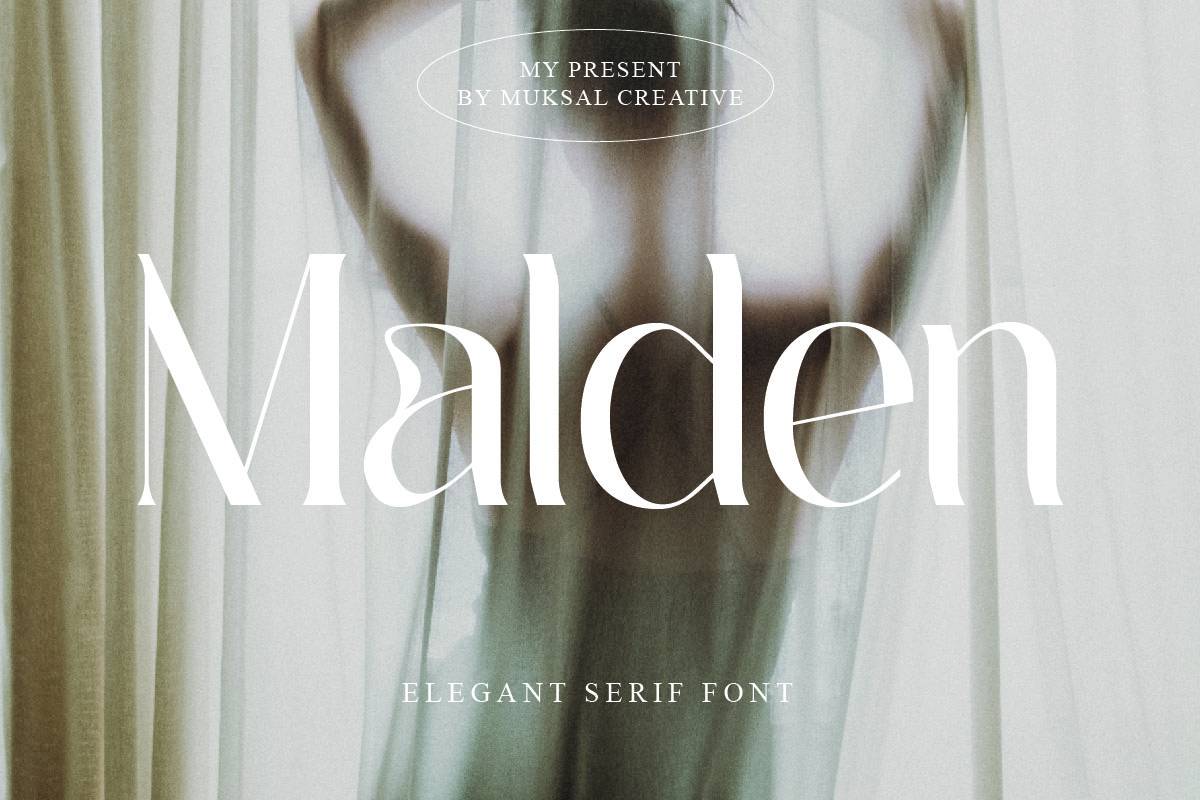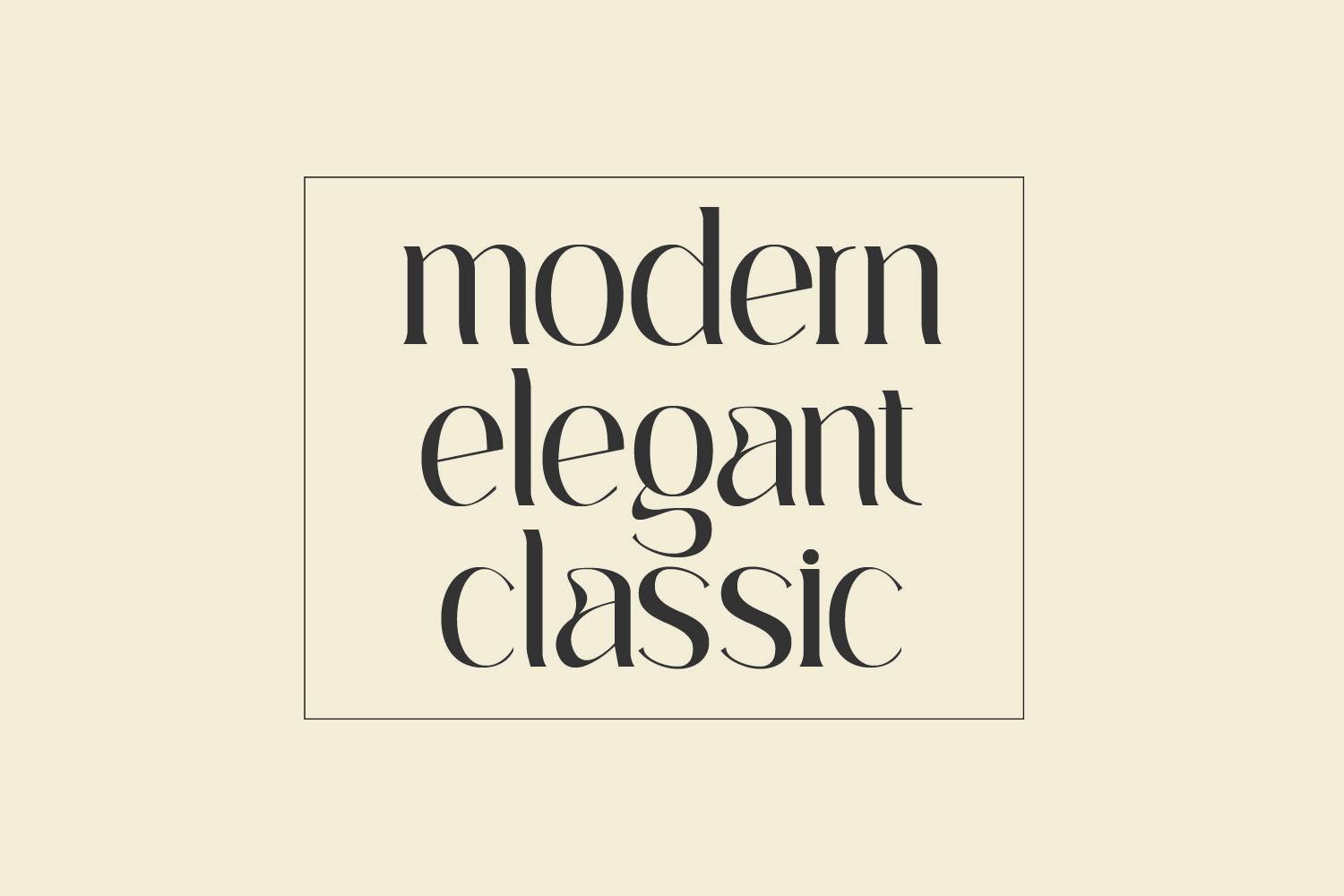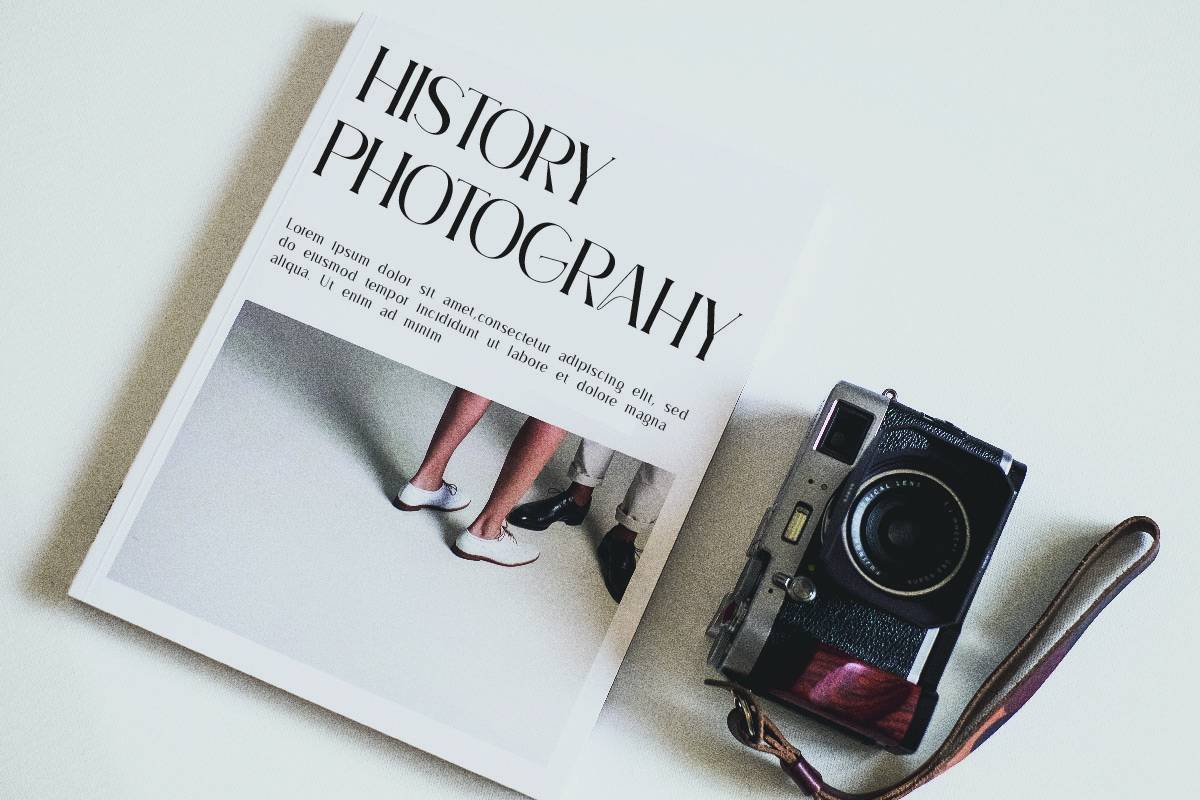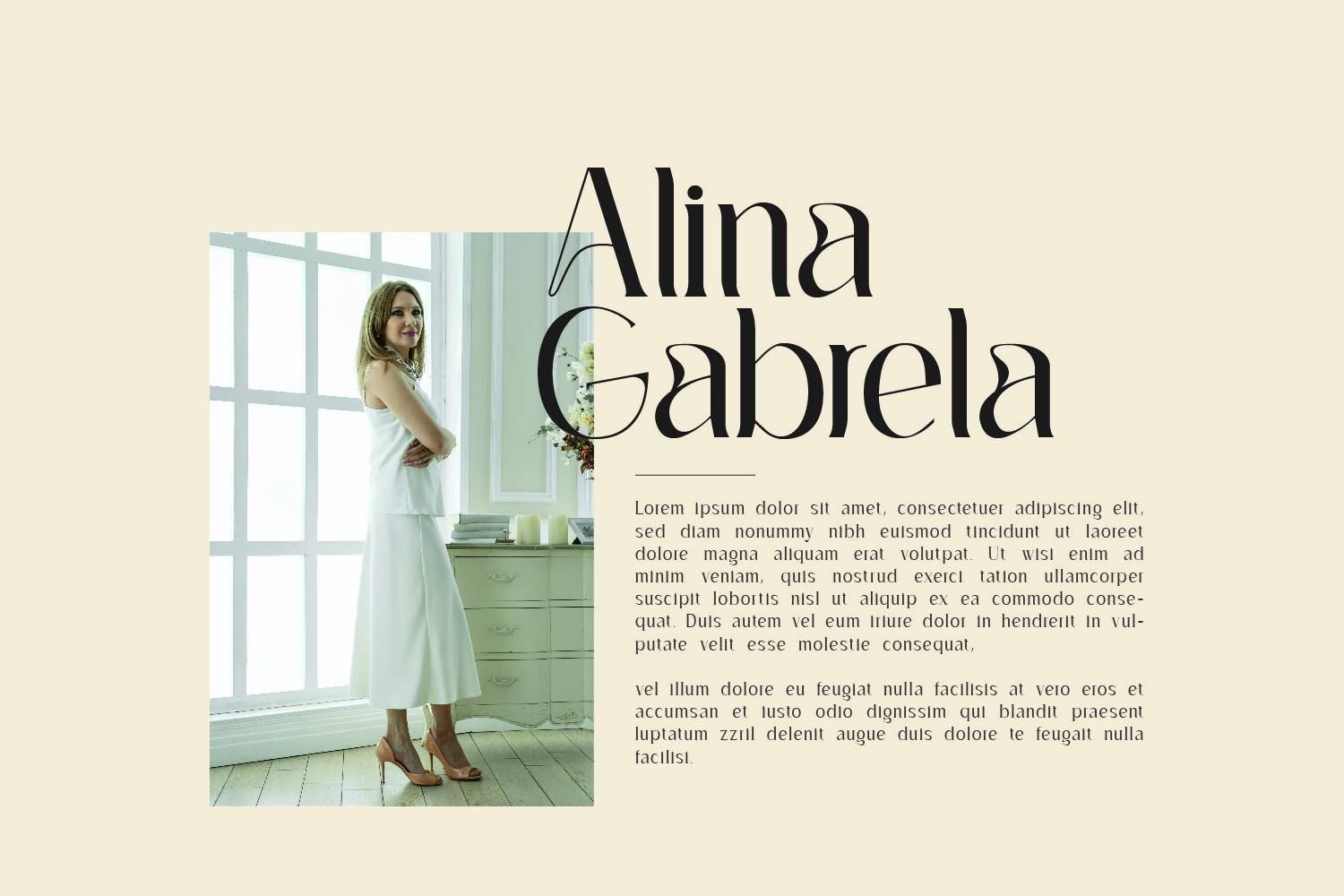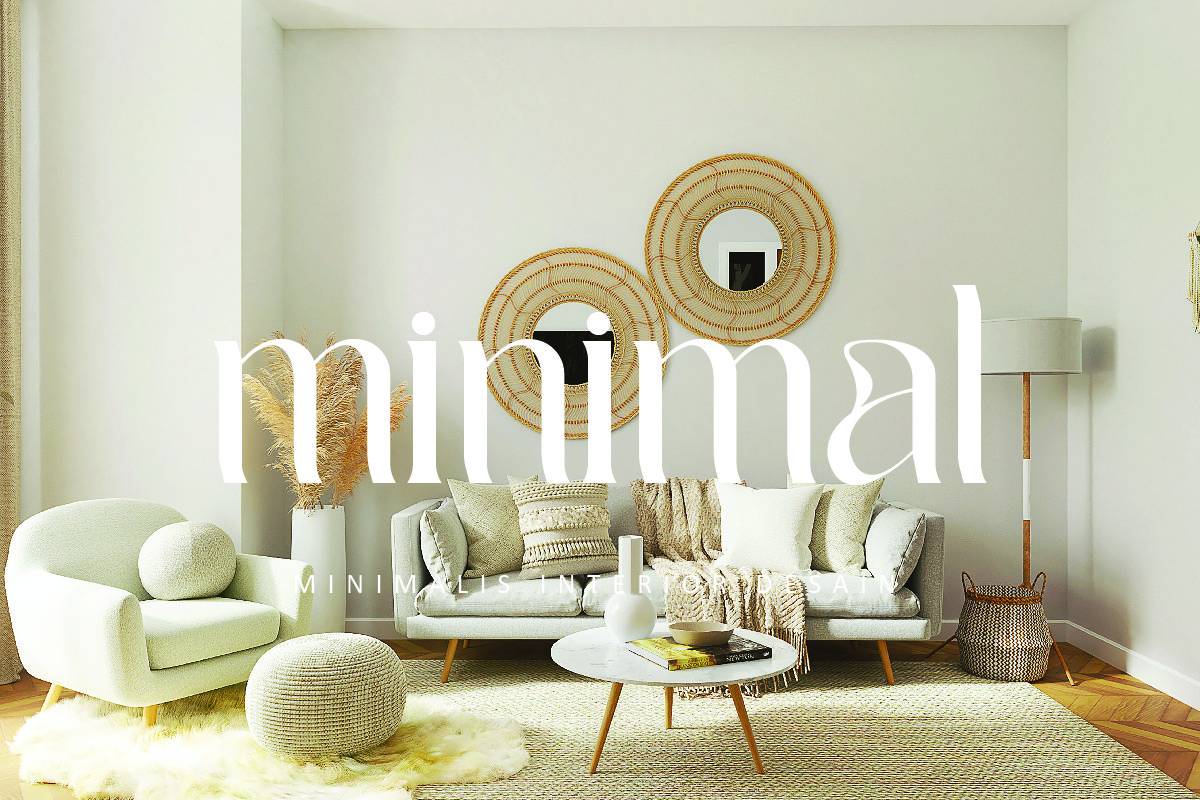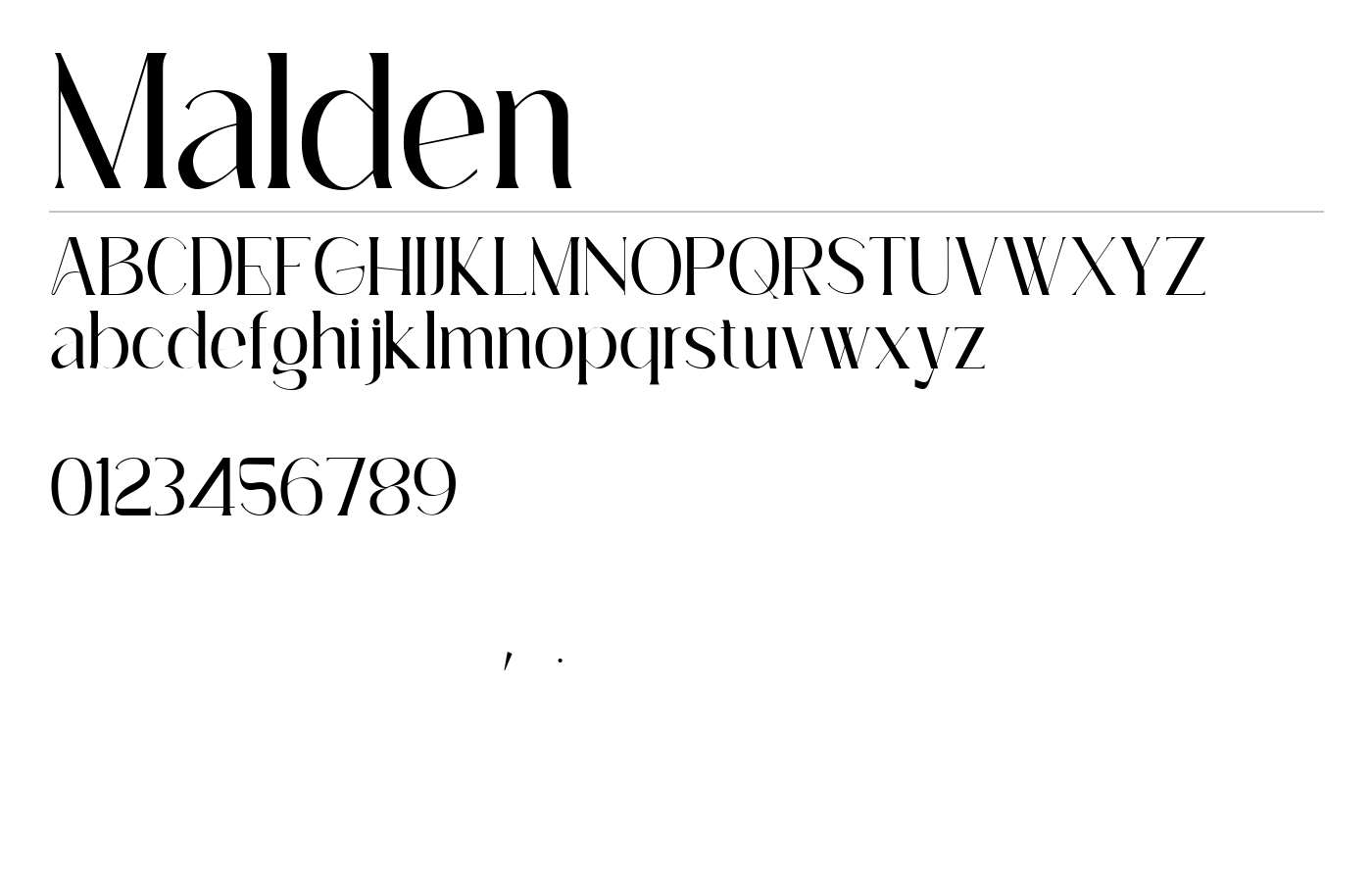
Malden is a refined serif font with a stylishly modern twist, featuring high contrast between thick and thin strokes and elegant, curved serifs that add a sense of luxury and sophistication. Its tall x-height and unique letterforms, such as the single-story 'a' and graceful Q tail, make it perfect for upscale branding, editorial headlines, and fashion-oriented designs where a sleek, classy appearance is desired. This font balances classic elegance with contemporary flair, making it ideal for projects that require a distinctive, polished look.
Malden Font
About Malden Font
| Designer | Muksal Creative |